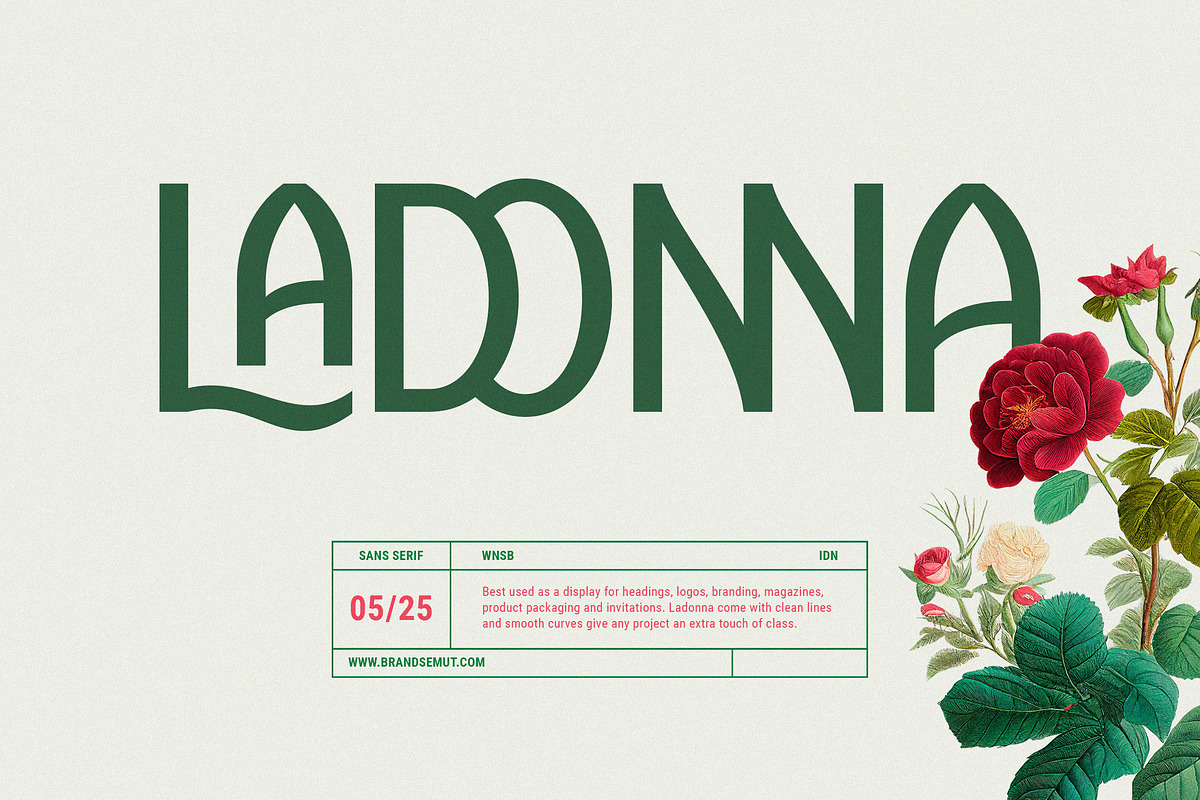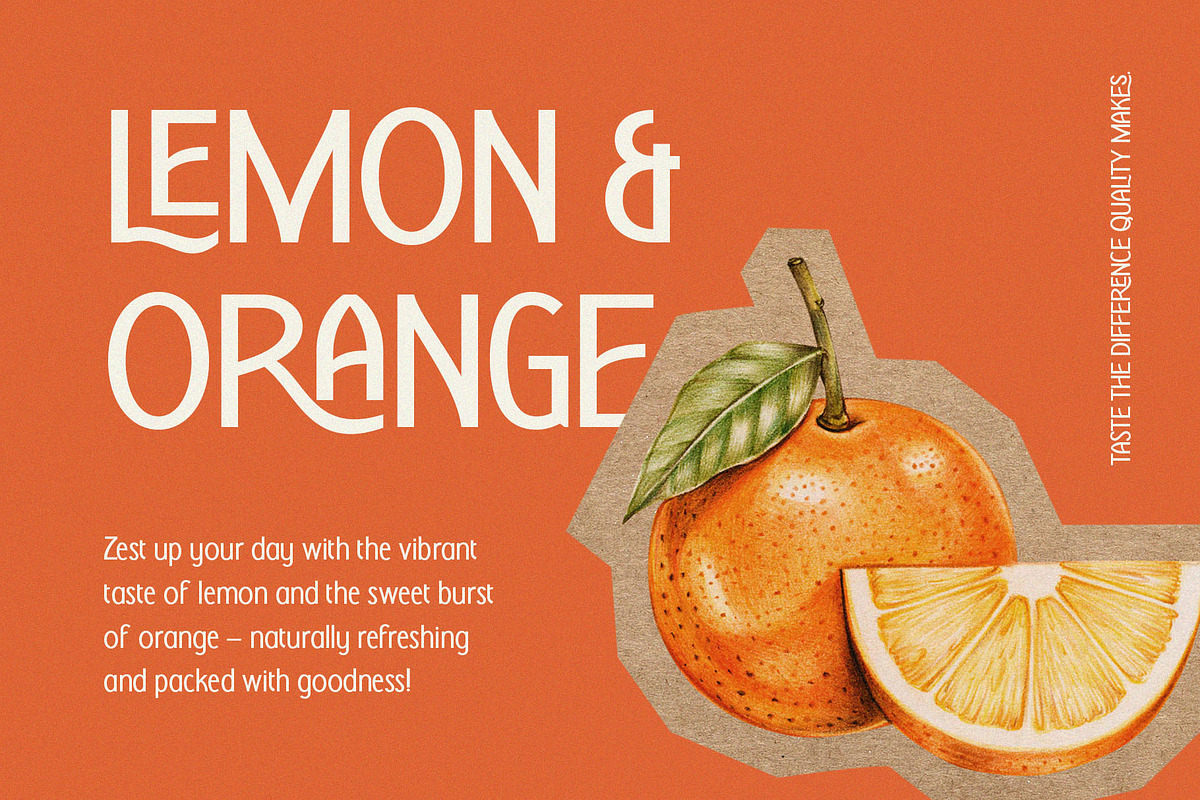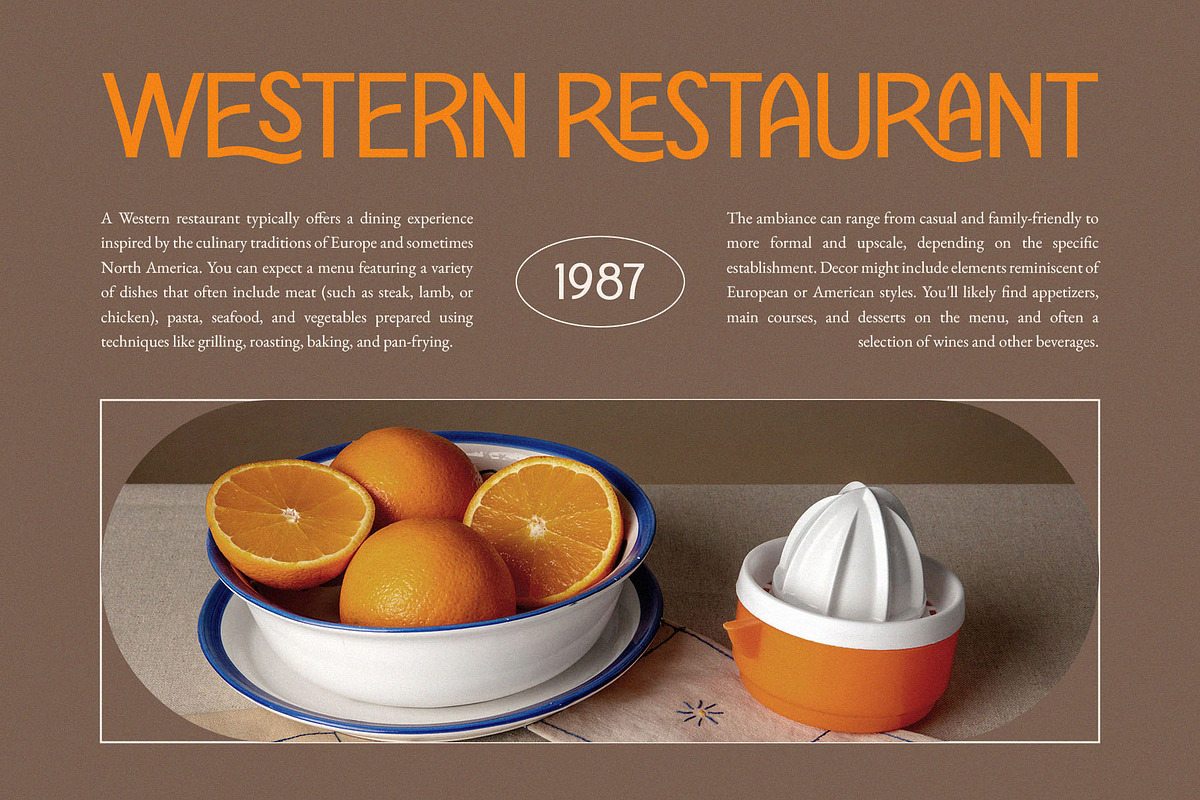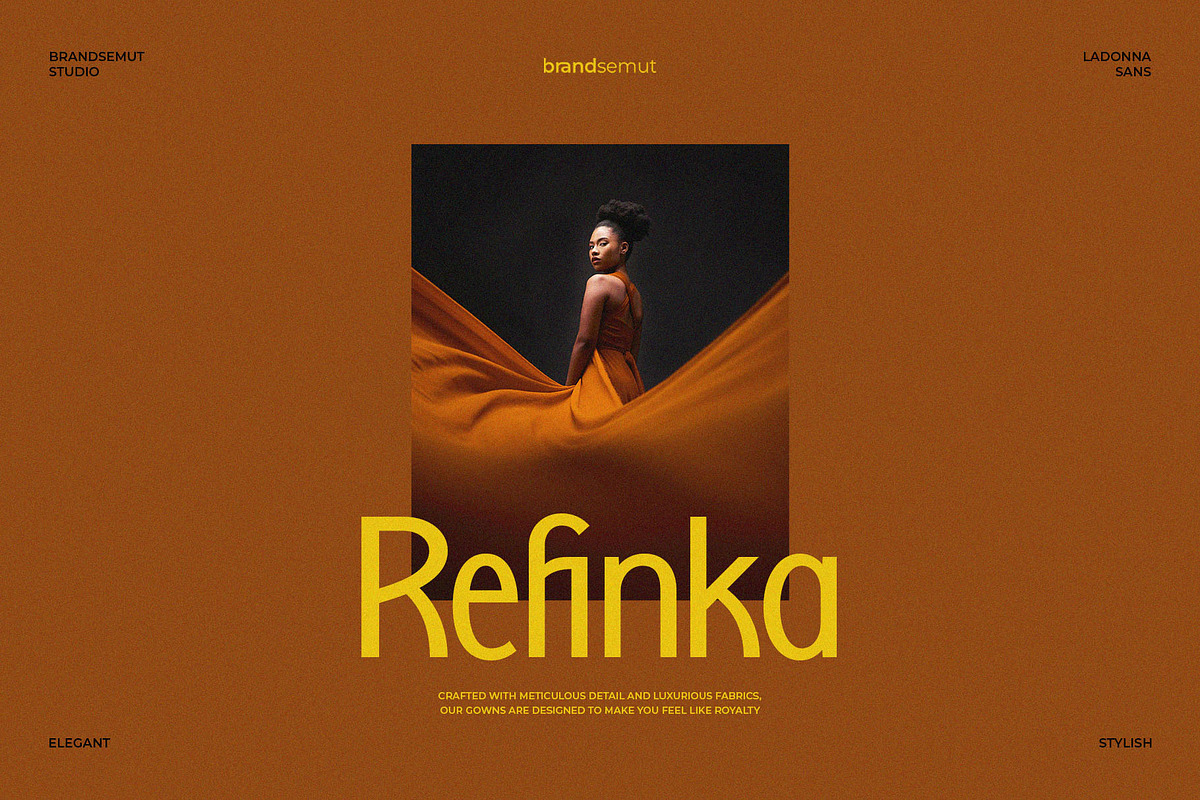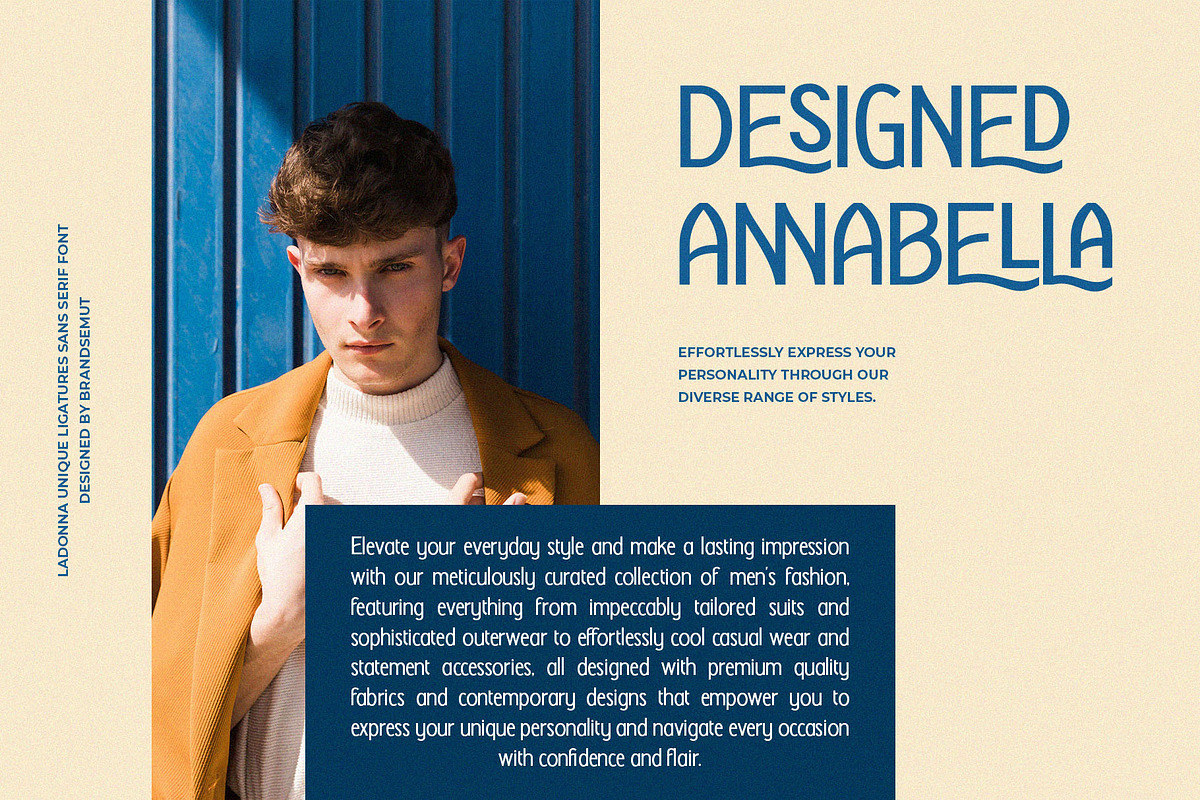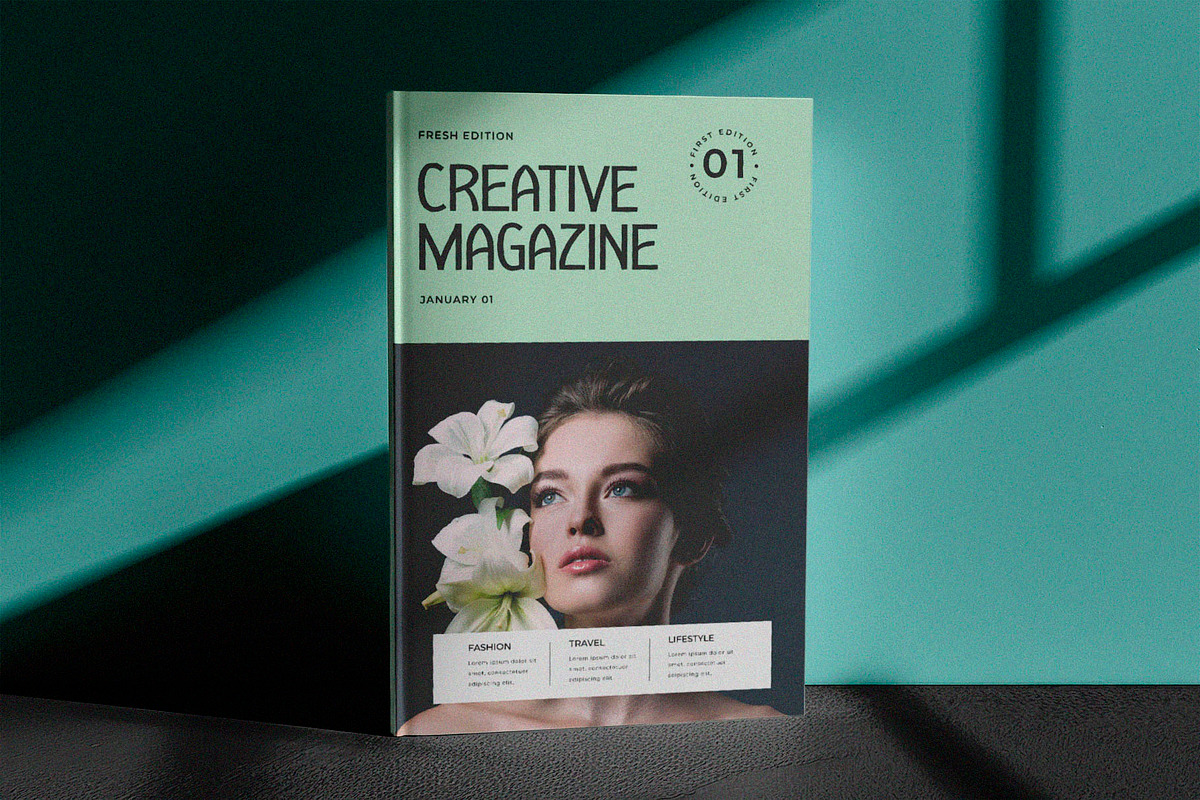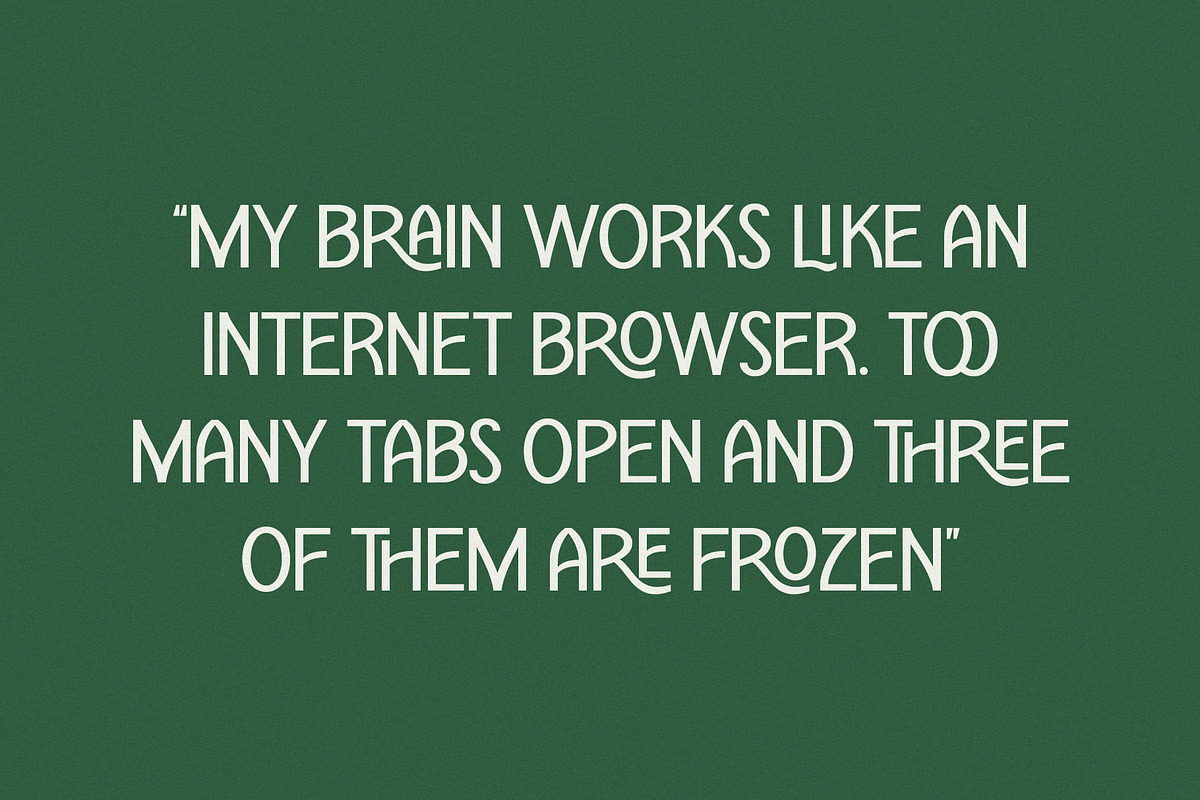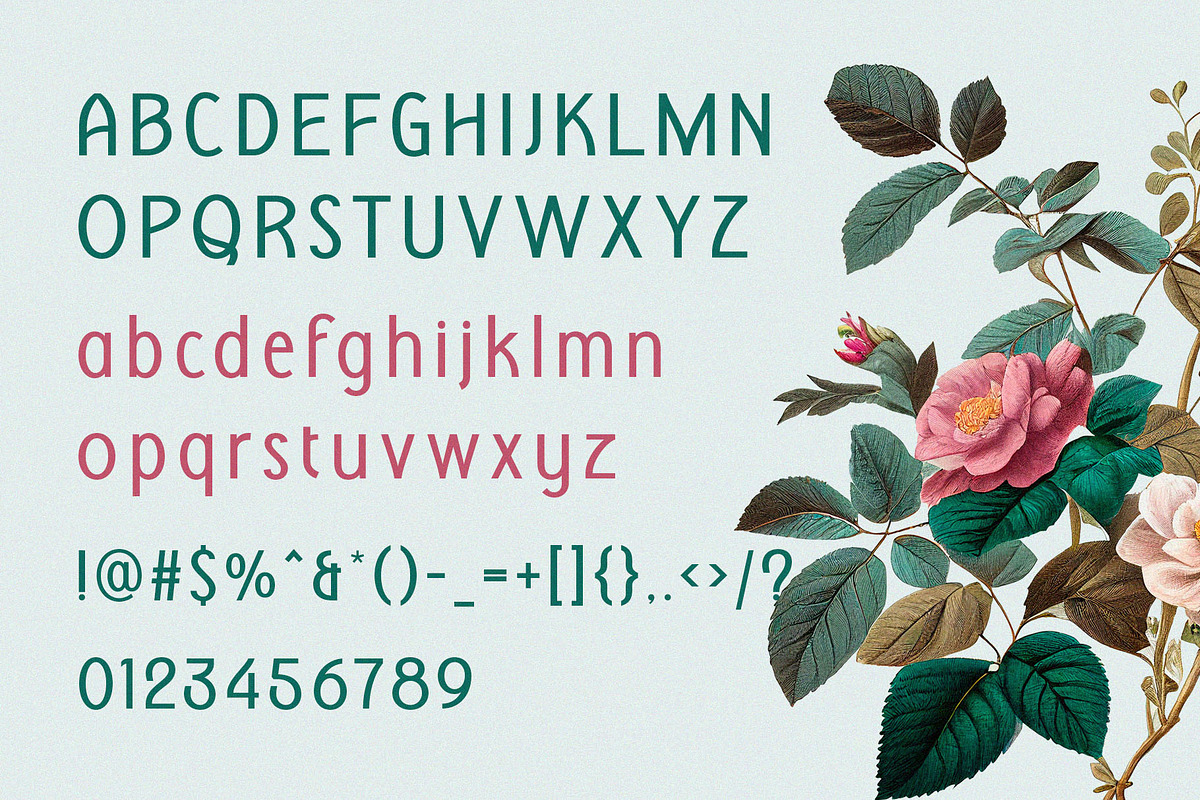
Ladonna – Display Sans Serif
Introducing Ladonna Display Sans Serif. Ladonna is a retro and unique font, best used as a display for headings, logos, branding, magazines, product packaging and invitations. Ladonna come with clean lines and smooth curves give any project an extra touch of class.